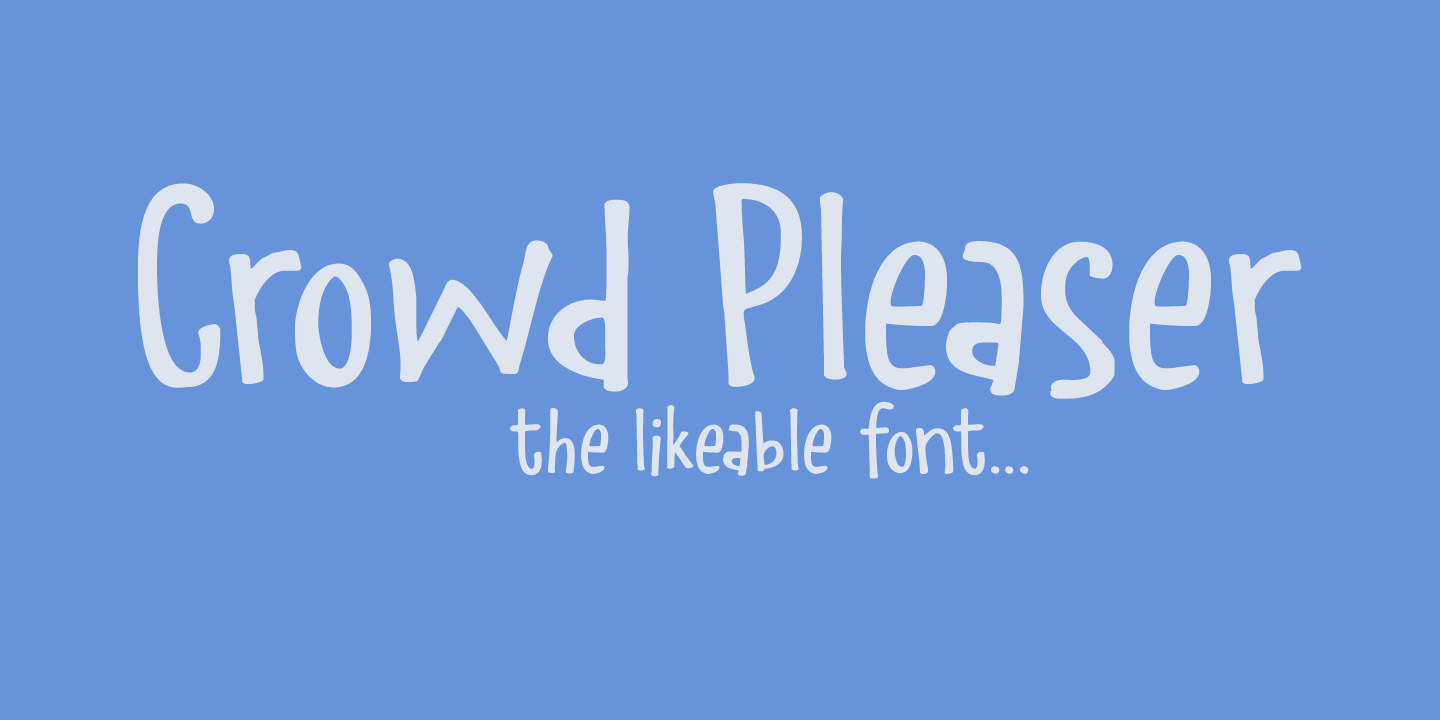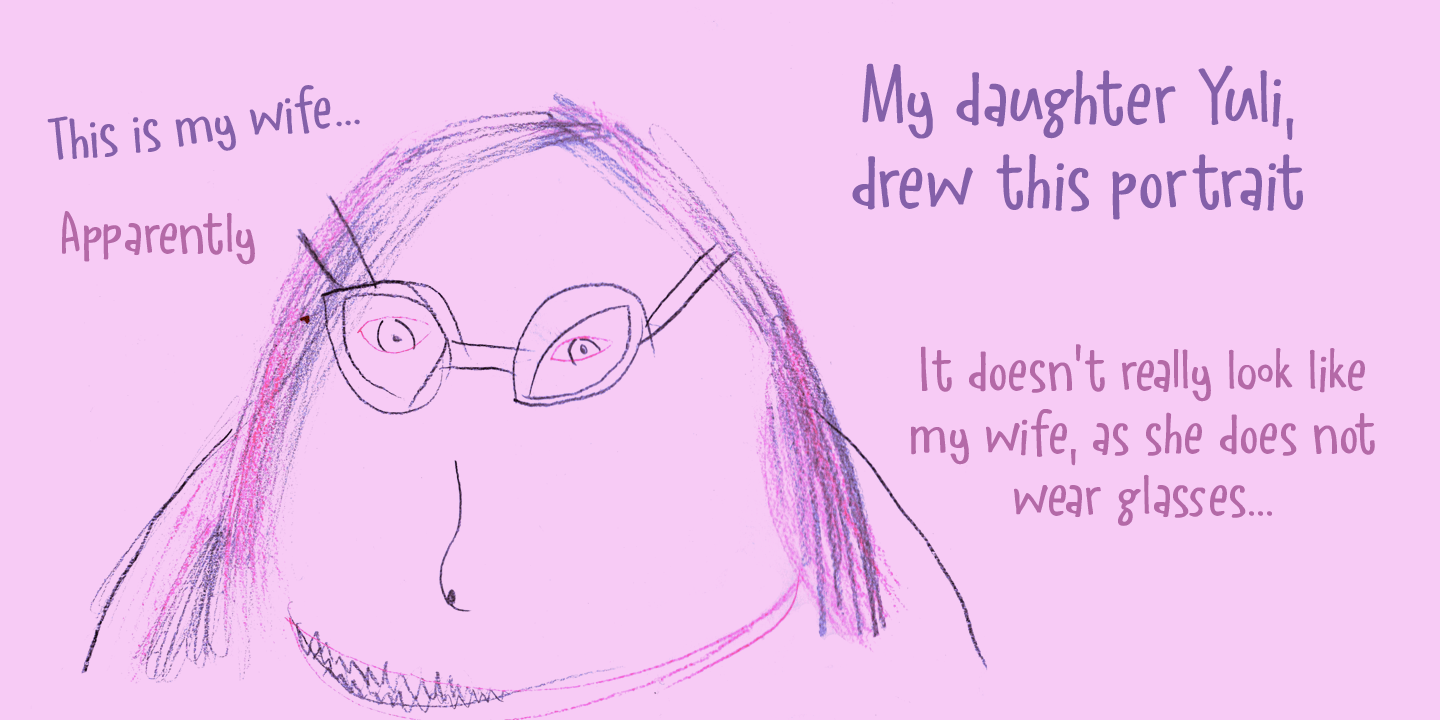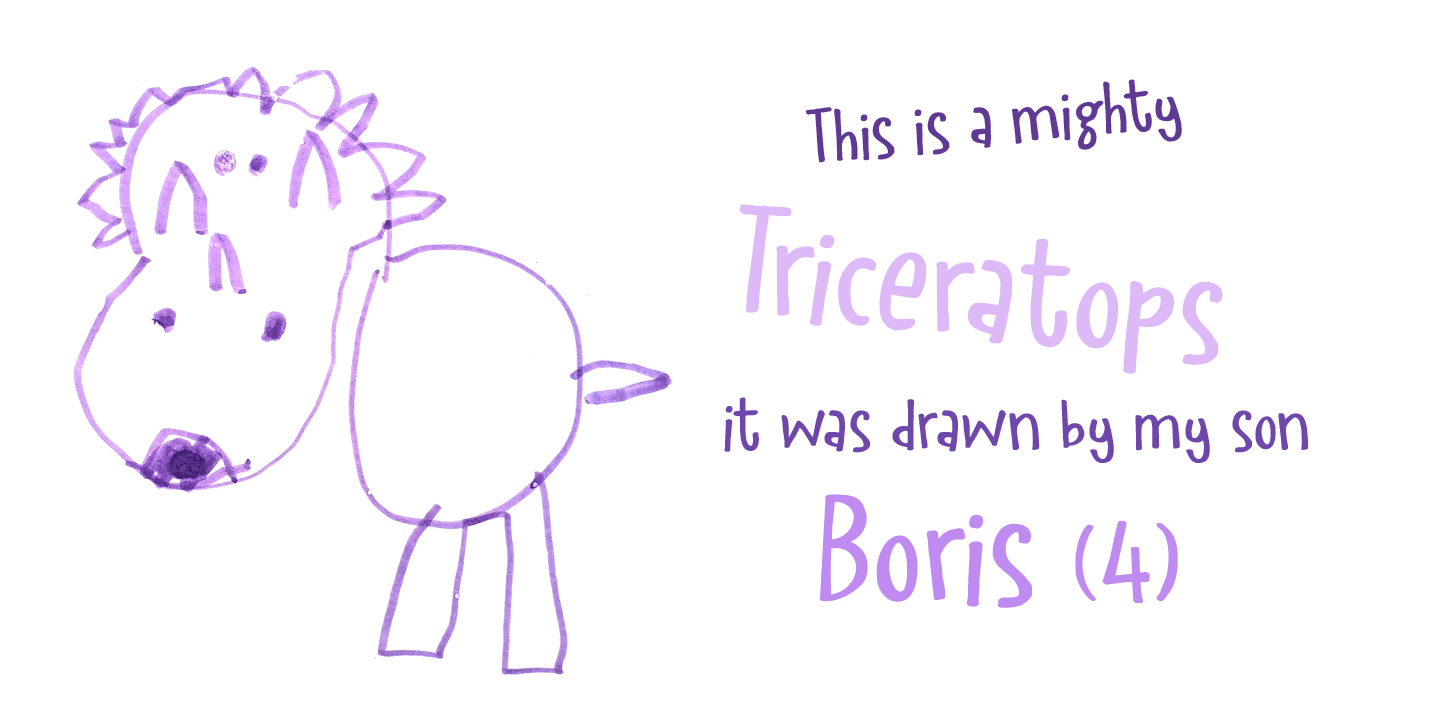
Crowd Pleaser
About Crowd Pleaser
Crowd Pleaser is a pleasant, handmade font. I hoped its lively looks, slightly crooked glyphs and overall happy appearance would appeal to many people – so I named it Crowd Pleaser. Well? not entirely true, as I have a list of font names and Crowd Pleaser…